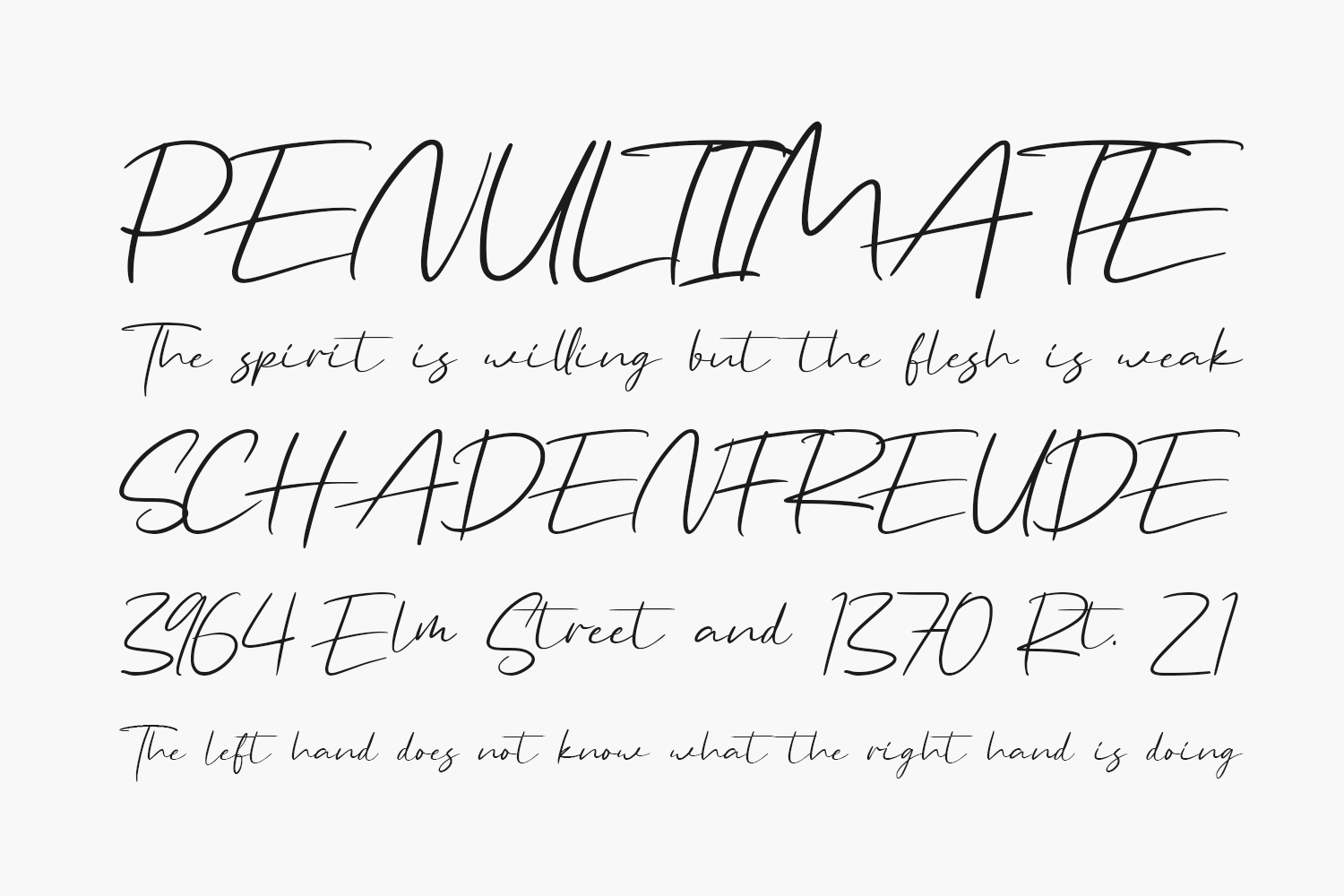
Angin Senja Free Font is a beautiful and stylish script font. Featuring characters that dance along the baseline, this font will add a luxury spark to any design project that you wish to create. Angin Senja Free Font was designed by StringLabs and is free for personal use only. Please purchase the full version for commercial use.